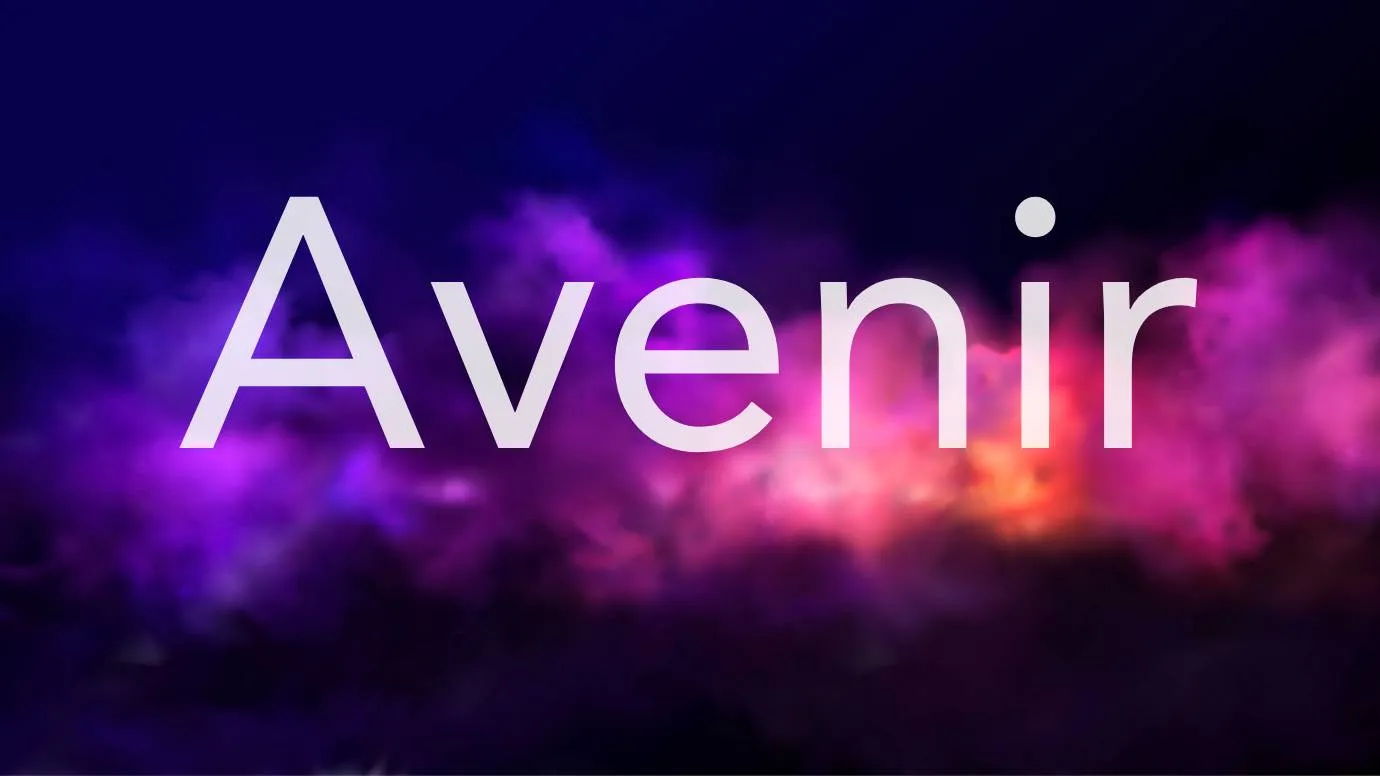
Avenir belongs to geometric sans serif typeface family. In 1987, it was designed by a famous typographic designer Adrian Frutiger.
The expanded family of Avenir font, consists of six weights and each weight contains the roman and oblique versions. In 2004, Adrian Frutiger reworked the Avenir font family and designed a new typeface with the name Avenir next font.
NameAvenir Font
DesignerAdrian Frutiger
FoundryLinotype
TypeSans-serif
Date Released1988